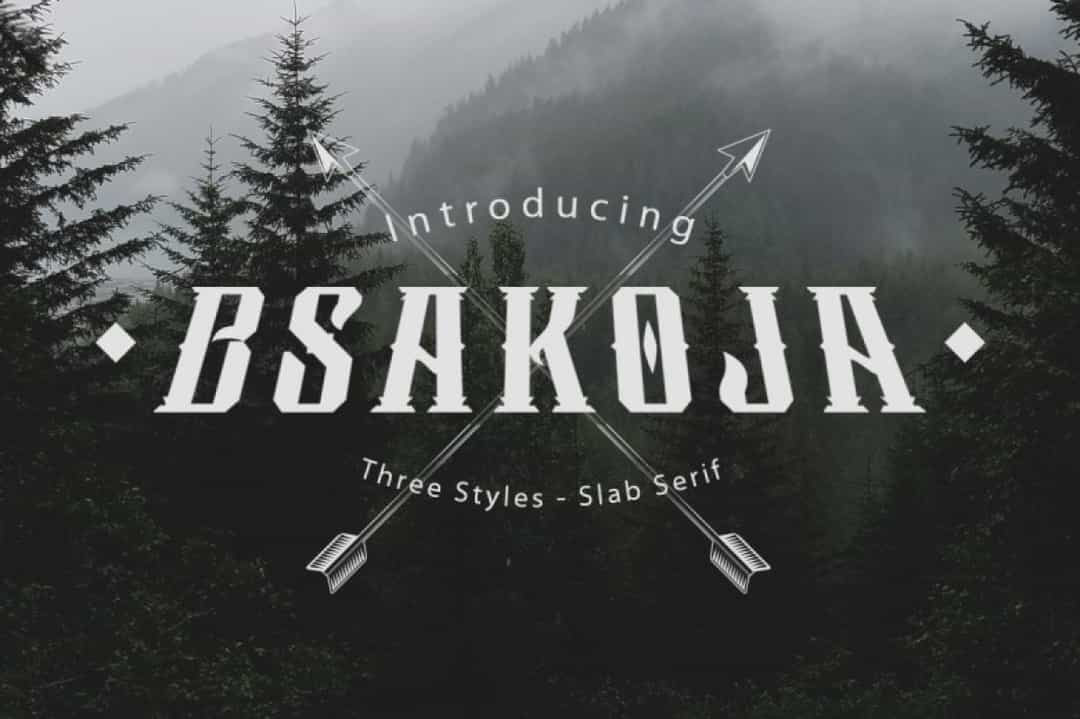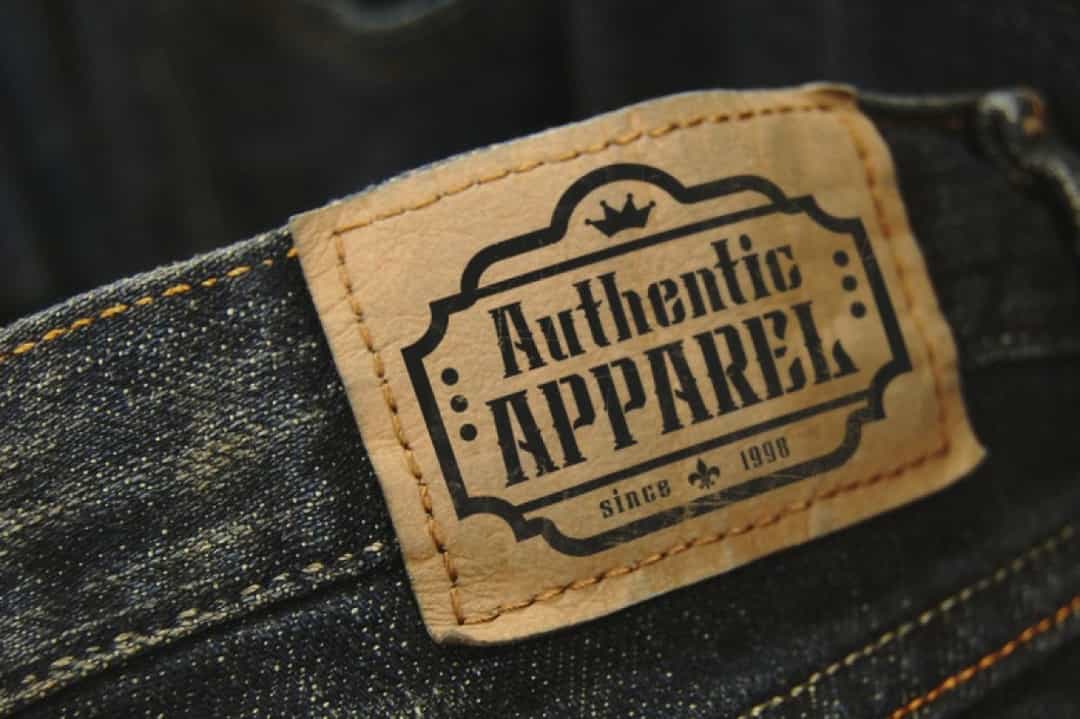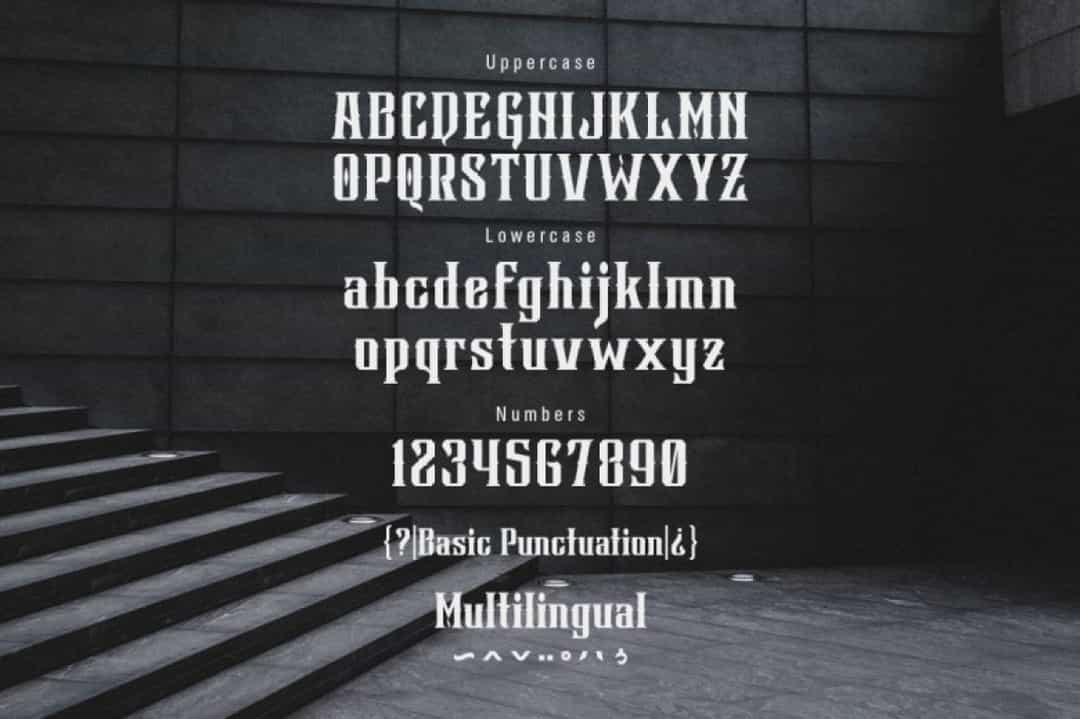
Discover Bsakoja Font, part of the Slab Serif collection—a versatile and unique font perfect for adding a personal touch to your projects. Download it for free and enjoy crafting designs with style, from invitations to social media posts. This font is available exclusively for personal use, giving you the freedom to create without limits. Unlock your creativity with Bsakoja Font today!
The Bsakoja Serif Font comes with three distinctive styles – Regular, Stencil, and Curvy – each offering flexible shapes that can be used in minimalist, vintage or modern settings. Furthermore, its curvier design makes printing out prints easier.